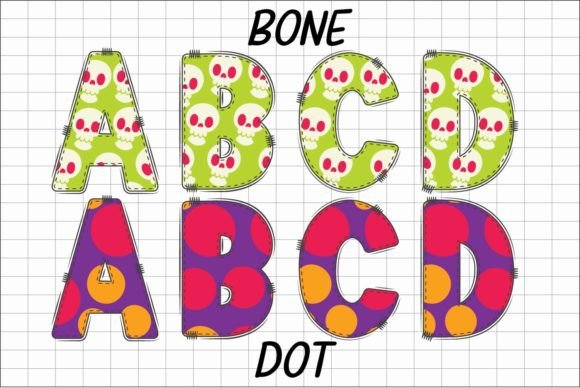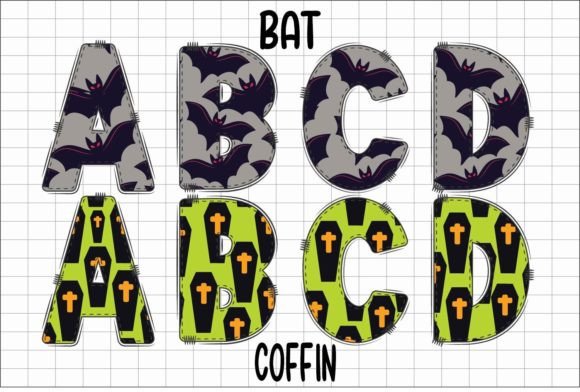
Happy Halloween Font: A Spook-tacular Addition to Your Design Collection
Halloween is just around the corner, and what better way to get into the spooky spirit than with a Happy Halloween Font? This delightful font bundle is a must-have for designers and crafters looking to add a touch of whimsy and eeriness to their projects. In this article, we’ll dive into the details of the Happy Halloween Font, exploring its features, styles, and uses.
What is Happy Halloween Font?
Happy Halloween Font is a color font bundle that includes 4 unique styles, each designed to capture the essence of the spookiest night of the year. Whether you’re creating invitations, decorations, or social media graphics, this font bundle has got you covered. With its bewitching and playful vibe, Happy Halloween Font is perfect for designers and crafters who want to add a dash of autumnal magic to their work.
Features of Happy Halloween Font
So, what makes Happy Halloween Font so special? Here are just a few of its standout features:
- 4 Unique Styles: The Happy Halloween Font bundle includes 4 distinct styles, each with its own personality and charm. Whether you’re looking for something bold and playful or spooky and elegant, there’s a style to suit your needs.
- Color Font: This font bundle is a color font, which means you can add an extra layer of depth and dimension to your designs. Imagine creating vibrant, eye-catching graphics that pop with color and personality.
- Whimsical and Spooky: Happy Halloween Font is designed to capture the whimsical and spooky essence of Halloween. With its intricate details and playful flair, this font is sure to add a touch of autumnal magic to your designs.